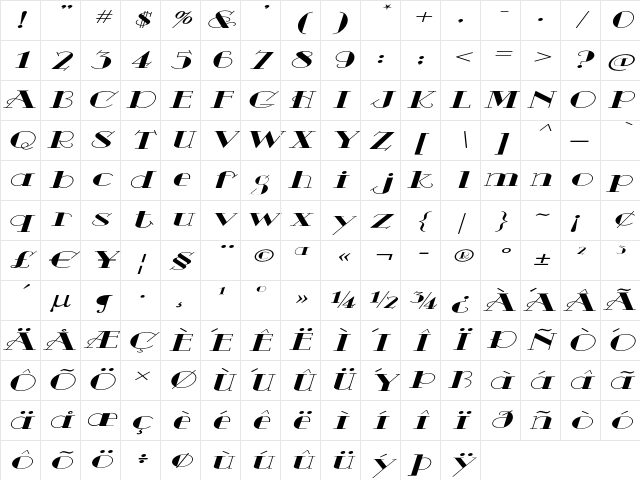
Harker Square Extra-expanded Italic
Style: Extra-expanded Italic
Harker Square Family
Harker Square Extra-expanded Italic
Complete Harker Square Extra-expanded Italic glyph index. Displaying only characters natively supported by Harker Square Extra-expanded Italic font.
Design Context for Harker Square
Harker Square is a composed and adaptable typeface that performs quietly and consistently across a wide range of design contexts. The slanted form adds forward momentum and visual energy.